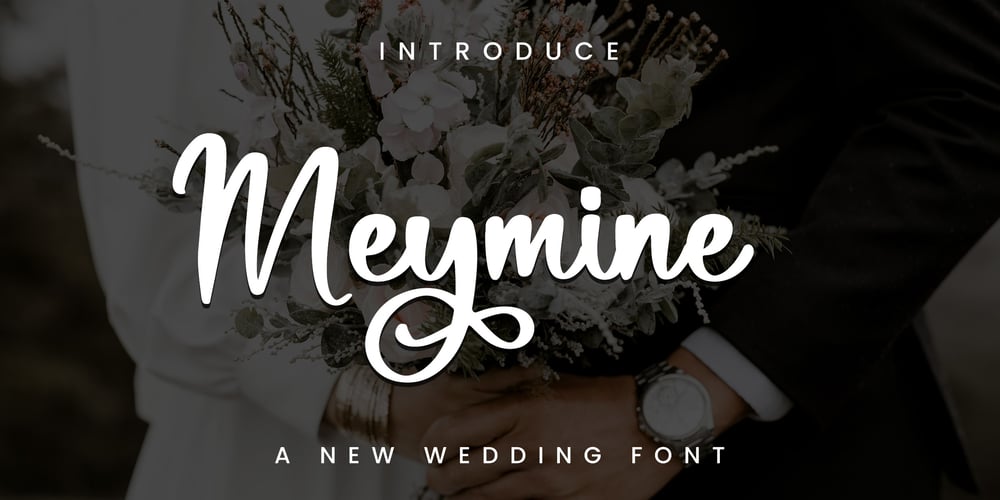
Meymine Font Family was designed by published by Chatype Studio. Meymine contains 1 styles and family package options. Meymine font with a new style, this font will be suitable for various projects such as quotes, logos, blog headers, posters, ribbons, fashion, clothing, letters, invitations, stationery, etc…and you can also use it on windows or Mac.enjoy my work, thank you ๐